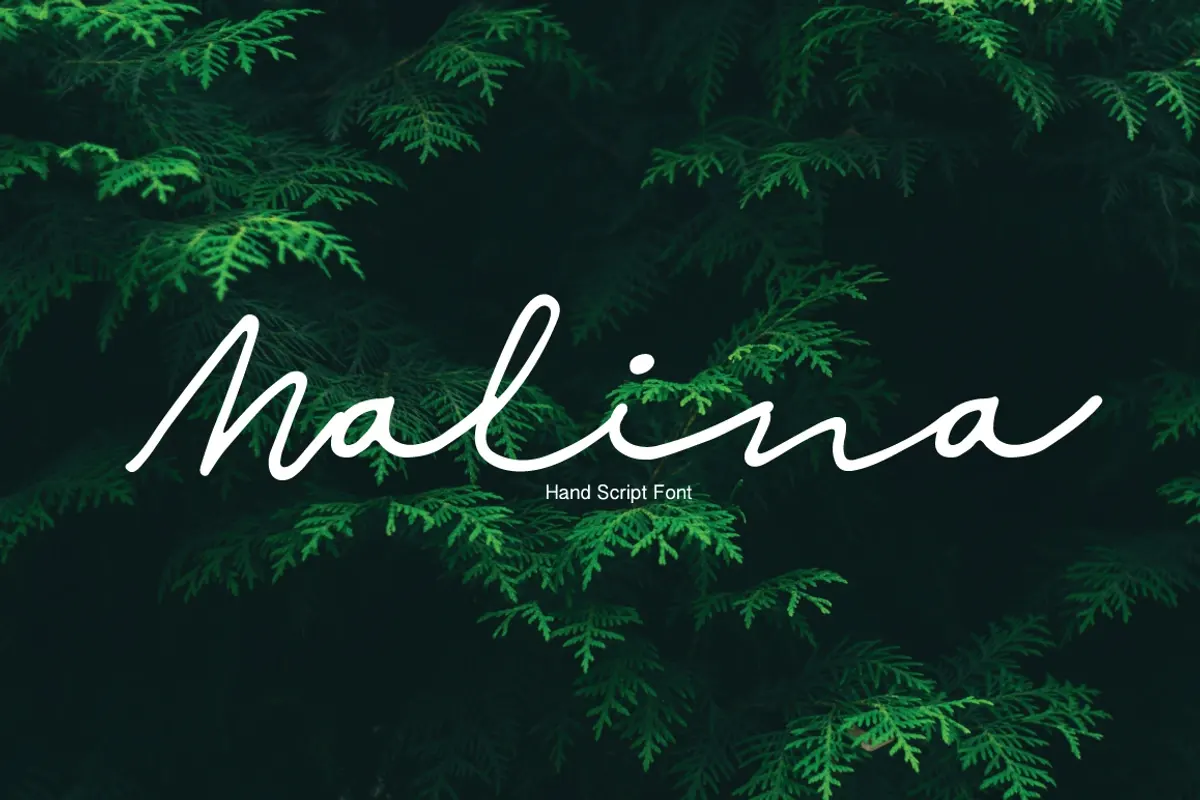
Malina | Script Font Free Download is a delicate and stylish handwritten script typeface, perfect for adding a touch of elegance and personality to your designs. With smooth, flowing lines and a graceful rhythm, Malina is ideal for wedding invitations, feminine branding, product packaging, social media graphics, and inspirational quotes.
Crafted to mimic natural handwriting, Malina Free Download includes ligatures and stylistic alternates for a more authentic, custom-made look. Its refined curves and modern calligraphy style make it suitable for both print and digital use.